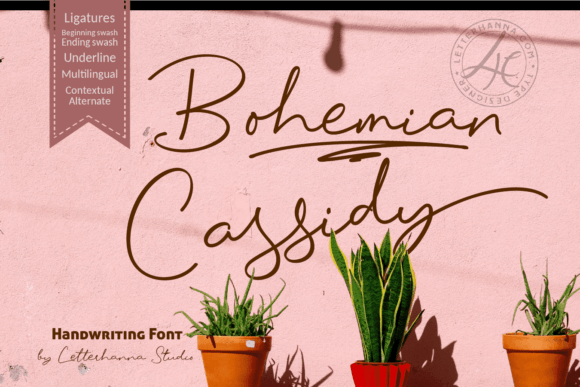
Discover the Charm of Bohemian Cassidy Font: Elevate Your Designs with Elegance
In the vast universe of typography, few fonts manage to capture the essence of elegance and charisma as effectively as the Bohemian Cassidy Font. This lovely handwriting script font has emerged as a favorite among designers and artists alike, thanks to its unique ability to add a touch of sophistication and whimsy to any project. Whether you’re working on signatures, logotypes, wedding invitations, posters, brochures, or any display use, Bohemian Cassidy is the perfect choice to make your designs stand out.
Key Features of Bohemian Cassidy Font
- Handwriting Script Font: Bohemian Cassidy boasts a beautiful, handcrafted feel that brings a personal touch to your designs.
- Versatility: It’s perfect for a wide range of applications including signatures, logotypes, weddings, posters, brochures, and more.
- Charismatic Impression: The font is designed to give your projects a more charismatic impression, making them memorable and engaging.
- Unique Touch: With Bohemian Cassidy, you can add a unique touch to your projects and branding, setting them apart from the crowd.
- PUA Encoded: The font is PUA encoded, allowing easy access to all glyphs and swashes, which means you can explore a wide range of creative possibilities.
Endless Design Possibilities with Bohemian Cassidy
The versatility of Bohemian Cassidy Font makes it an excellent choice for various design projects. Here are some ideas to get you started:
- Greeting Cards: Add a personal touch to your greeting cards, making them special and heartfelt.
- Wedding Designs: Use Bohemian Cassidy for wedding invitations, banners, and name cards to create a cohesive and elegant look.
- Branding: Incorporate the font into your branding to give it a unique and charismatic feel.
- Lettering Projects: Explore the creative potential of Bohemian Cassidy in lettering projects, where its handwriting style truly shines.
- Fonts Pairing: Don’t hesitate to experiment with pairing Bohemian Cassidy with serif or sans serif fonts to create interesting and dynamic layouts.
Tips for Working with Bohemian Cassidy Font
To make the most of Bohemian Cassidy, consider the following design tips:
- Mix and Match: Try mixing your design with Bohemian Cassidy. Its handwriting style lends itself well to creative experimentation.
- Font Pairing: Pair Bohemian Cassidy with complementary fonts to create visually appealing contrasts and add depth to your designs.
- Explore Glyphs and Swashes: Take advantage of the PUA encoding to access and incorporate glyphs and swashes, adding variety and uniqueness to your work.
- Play with Layouts: Find interesting layouts that complement your project and allow Bohemian Cassidy to be the focal point.
Why Choose Bohemian Cassidy Font?
In a market flooded with countless fonts, Bohemian Cassidy stands out for several reasons:
- Unique Style: Its distinctive handwriting script style is both elegant and charismatic, perfect for designers looking for something that stands out.
- Versatility: The font’s adaptability makes it suitable for a wide range of projects, from personal to professional.
- Ease of Use: Being PUA encoded, it offers ease of use, allowing designers to focus on creativity rather than technicalities.
Bohemian Cassidy Font is a remarkable addition to any designer’s toolkit. Its elegant handwriting style, versatility, and ease of use make it an ideal choice for a myriad of projects. Whether you’re aiming to add a touch of elegance, charisma, or uniqueness to your designs, Bohemian Cassidy is up to the task. So, don’t hesitate to explore the creative possibilities it offers and elevate your designs to new heights of sophistication and charm.